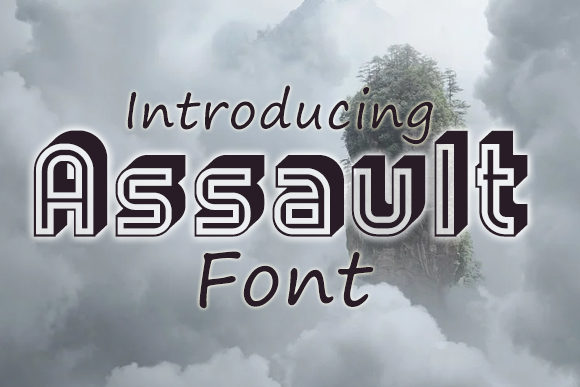
Introducing Assault Font: The Ultimate 3D Retro Styled Display Font
Are you looking for a font that can add a touch of nostalgia and edginess to your designs? Look no further than Assault Font, an awesome 3D retro styled display font that’s perfect for creating stunning posters, banners, and prints. In this article, we’ll take a closer look at Assault Font, its features, and how you can use it to take your designs to the next level.
What is Assault Font?
Assault Font is a 3D retro styled display font that’s designed to give your designs a bold and eye-catching look. With its unique blend of vintage and modern elements, Assault Font is perfect for creating designs that require a touch of nostalgia and edginess. Whether you’re designing a poster, banner, or print, Assault Font is sure to make your design stand out from the crowd.
Key Features of Assault Font
So, what makes Assault Font so special? Here are some of its key features:
- 3D Retro Style: Assault Font has a unique 3D retro style that’s reminiscent of old-school video games and sci-fi movies.
- Display Font: Assault Font is a display font, which means it’s designed to be used at large sizes, making it perfect for posters, banners, and prints.
- Bold and Eye-Catching: Assault Font is a bold and eye-catching font that’s sure to grab attention.
- Versatile: Assault Font can be used for a wide range of designs, from posters and banners to prints and logos.
How to Use Assault Font
Now that we’ve covered the features of Assault Font, let’s talk about how to use it. Here are some tips for getting the most out of Assault Font:
- Use it for Headlines: Assault Font is perfect for headlines, as it’s designed to be bold and eye-catching.
- Experiment with Colors: Assault Font looks great in a variety of colors, so don’t be afraid to experiment and find the perfect color for your design.
- Pair it with Other Fonts: Assault Font can be paired with other fonts to create a unique and interesting design.
- Use it for Large Sizes: Assault Font is designed to be used at large sizes, so make sure to use it for posters, banners, and prints.
Benefits of Using Assault Font
So, why should you use Assault Font for your designs? Here are some of the benefits of using Assault Font:
- Adds a Touch of Nostalgia: Assault Font has a unique retro style that’s sure to add a touch of nostalgia to your designs.
- Grabs Attention: Assault Font is a bold and eye-catching font that’s sure to grab attention.
- Increases Brand Visibility: Assault Font can help increase brand visibility by making your designs stand out from the crowd.
- Versatile: Assault Font can be used for a wide range of designs, making it a versatile font to have in your collection.
Where to Use Assault Font
Assault Font can be used for a wide range of designs, but here are some of the most popular places to use it:
- Posters: Assault Font is perfect for posters, as it’s designed to be bold and eye-catching.
- Banners: Assault Font is also great for banners, as it’s designed to be used at large sizes.
- Prints: Assault Font can be used for a wide range of prints, from brochures to business cards.
- Logos: Assault Font can be used to create unique and eye-catching logos.
In conclusion, Assault Font is an awesome 3D retro styled display font that’s perfect for creating stunning posters, banners, and prints. With its unique blend of vintage and modern elements, Assault Font is sure to add a touch of nostalgia and edginess to your designs. Whether you’re a designer, artist, or DIY enthusiast, Assault Font is a great addition to your font collection.
- What is Assault Font?: Assault Font is a 3D retro styled display font that’s perfect for creating stunning posters, banners, and prints.